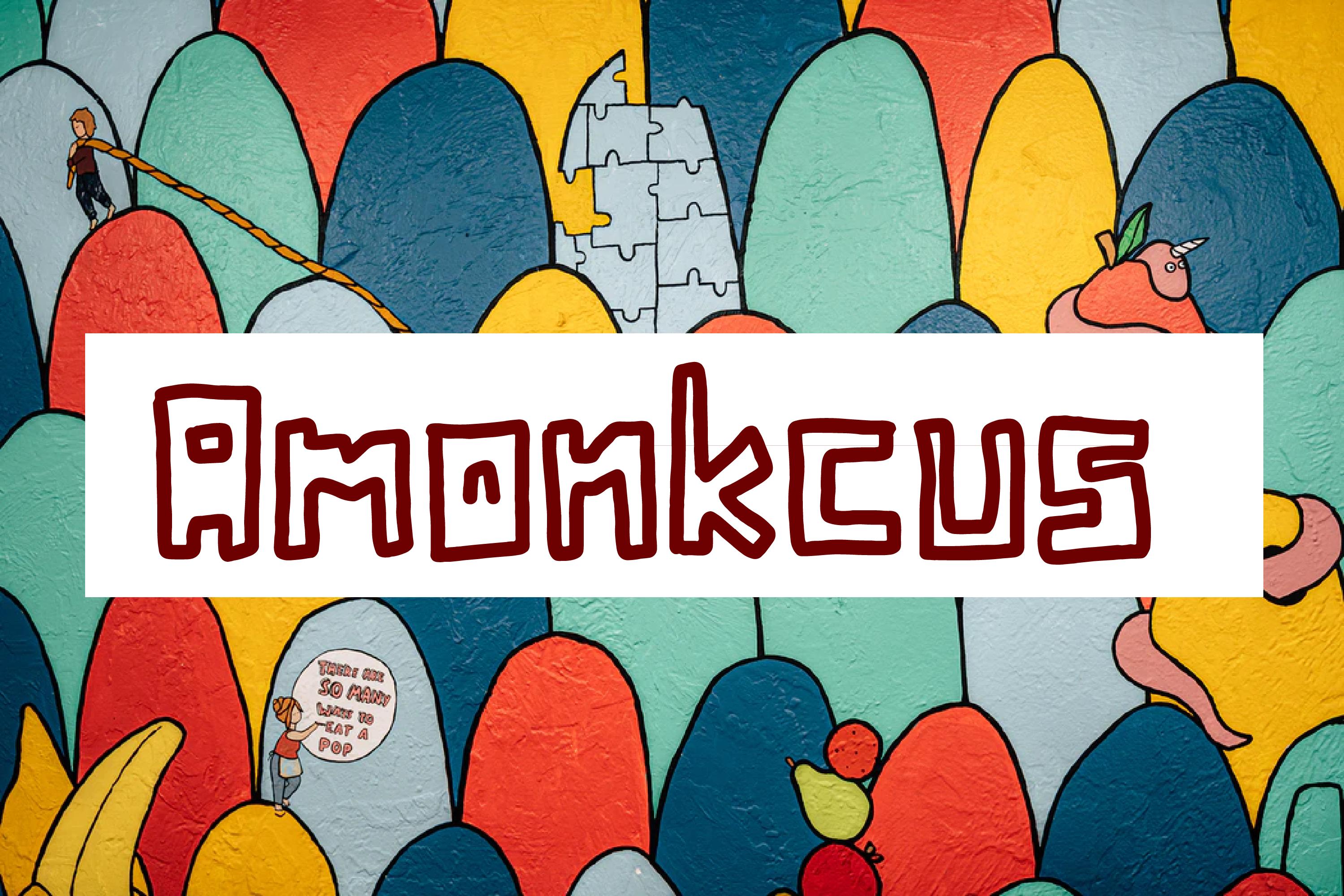
Amonkcus Font Description
Amonkcus is a cool, quirky outlined display font. Whether you are using it for cartoon-related designs, children’s games, quotes, titles, brand names, book covers, posters, or just any creation that requires a touch of beauty, this font is a great choice.